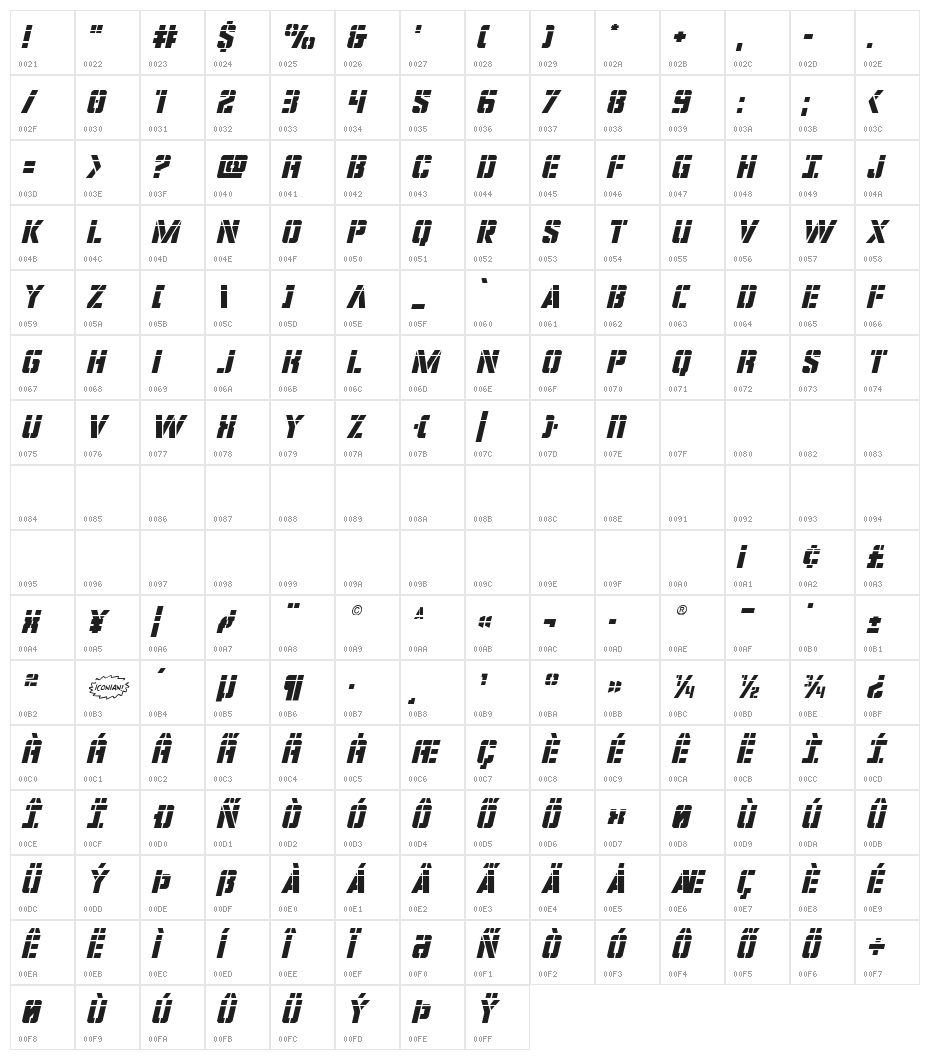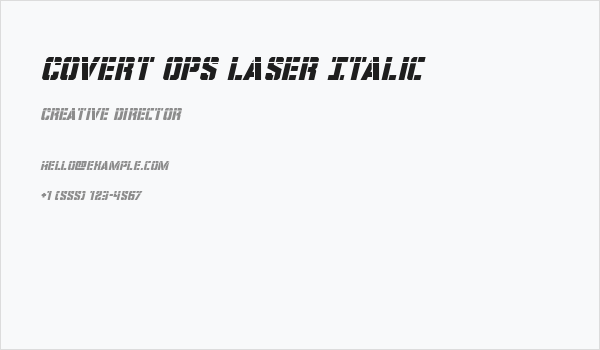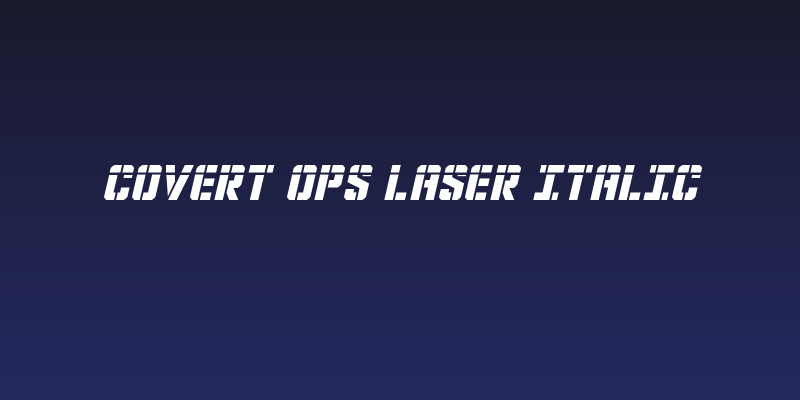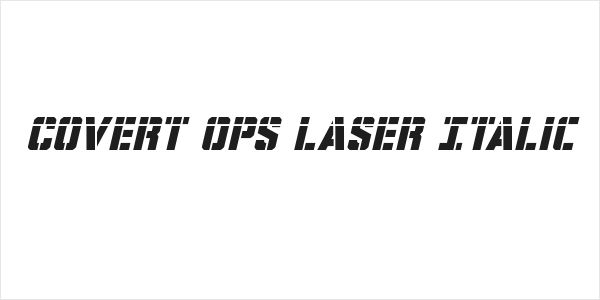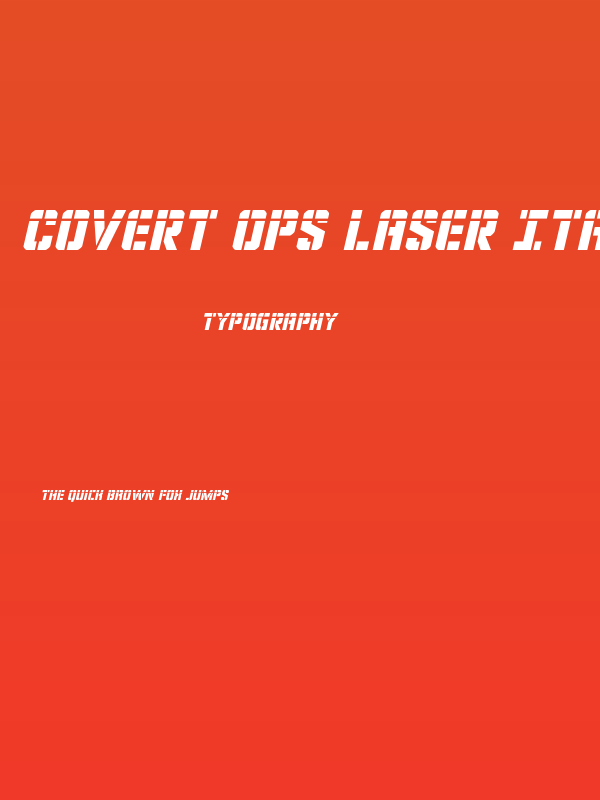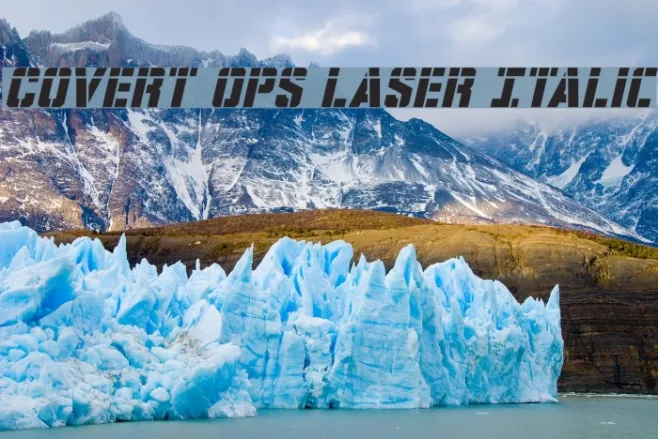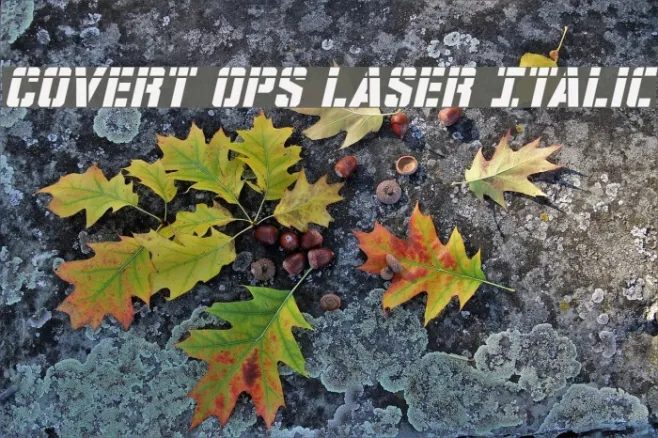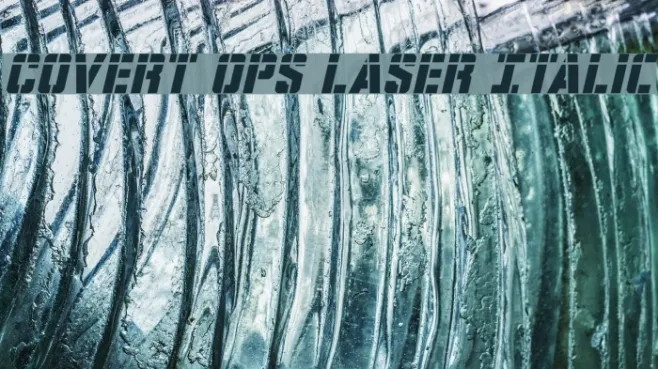
Covert Ops Laser Italic Font
Covert Ops Laser Italic Description
This font features a bold and futuristic design with a distinct stencil-like appearance. The characters are sharply angled, giving a sense of motion and urgency. The italicized style enhances its dynamic look, making it suitable for projects that require a modern and edgy feel. The uppercase and lowercase letters maintain a consistent style, while the numbers and special characters complement the overall aesthetic. The font's unique cut-out sections add to its industrial and high-tech vibe.
| Proposed Projects | Ideal for use in technology branding, video game titles, sci-fi movie posters, and military-themed designs. |